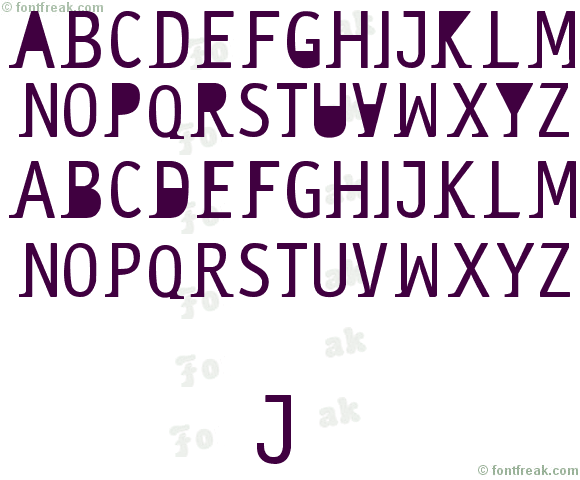
saneserif
About Saneserif
Saneserif, designed by Steve Palmer in 1998 and offered as freeware by Electric Type Foundry, is an eye-catching sans-serif font that effortlessly blends modern aesthetics with functional design. Its clean lines and balanced proportions make it a versatile choice for a range of creative projects. The font features a consistent stroke weight that lends itself to legibility, while the moderate spacing between characters enhances readability in both print and digital formats. With its minimalistic approach, Saneserif showcases a contemporary style without unnecessary decorative elements, making it an ideal choice for those seeking a straightforward yet stylish typeface.
This font is particularly well-suited for various applications, such as website headers, business cards, and promotional materials where clarity is paramount. Its crisp appearance makes it a great fit for restaurant menus, ensuring that dish names and descriptions are easily digestible. Additionally, Saneserif can elevate the look of corporate presentations, giving them a modern touch that reflects professionalism. Graphic designers and content creators will find it a valuable asset for branding projects, as it conveys a sense of modernity and sophistication.
What sets Saneserif apart is its ability to maintain a sleek and polished appearance while remaining versatile enough for both formal and casual contexts. Whether you're crafting a stylish poster or designing an engaging website, Saneserif delivers a balanced aesthetic that captivates audiences and enhances your overall design narrative.